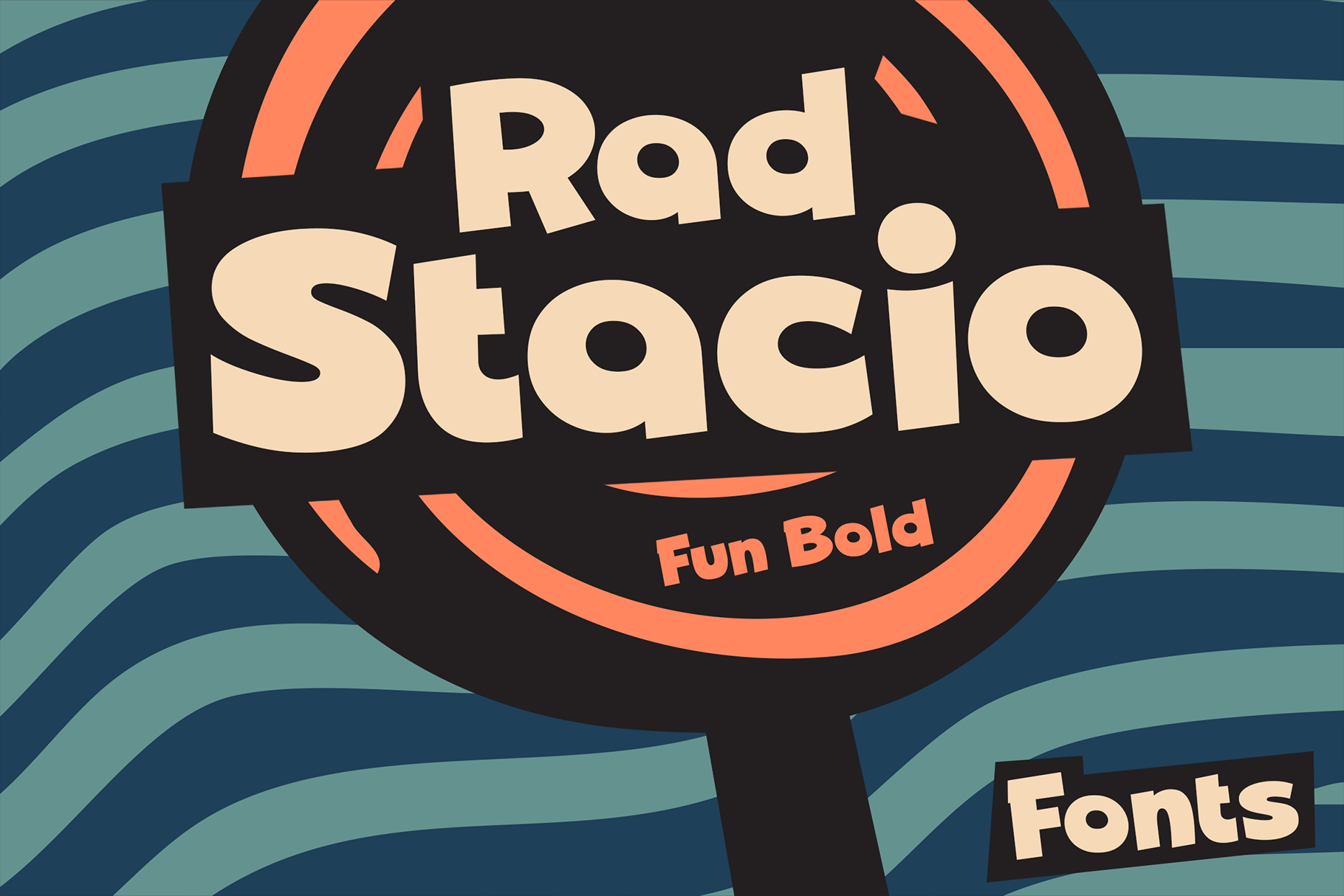
Rad Stacio - Fun Bold Fonts
Are you ready to inject a dose of infectious personality into your designs? Look no further than Rad Stacio, the brand new font that's as fun to look at as it is to use! Inspired by the vibrant, pop-art infused world of retro cartoons, Rad Stacio is designed to make your projects stand out with its unique blend of playful charm and undeniable boldness.
Rad Stacio isn't just a font; it's a mood. Its wonderfully uneven, round, and chunky letterforms exude a super casual, free-spirited vibe that's perfect for capturing attention and sparking joy. Forget rigid serifs and stuffy styles – Rad Stacio is here to break the rules and bring a smile to every face.
Why Rad Stacio is Your Next Design Essential:
Pop-Cartoony & Quirky: Instantly evoke a sense of nostalgia and fun with a style reminiscent of your favorite Saturday morning cartoons.
Bold & Playful: Make a powerful statement with its thick, confident strokes, while maintaining an approachable and friendly feel.
Uneven & Casual: The subtle irregularities in its design give it an authentic, hand-drawn character, adding warmth and personality.
Versatile Design Powerhouse:
Casual Branding: Craft unforgettable brand identities that resonate with a youthful, energetic audience.
Logo Design: Create distinctive, memorable logos that pop off the page.
Food & Beverage Branding: Design packaging and menus that are as appetizing as the products themselves.
Pop Events & Festivals: Set the stage for exciting gatherings with eye-catching posters and promotional materials.
Retro Design: Transport your audience back in time with a fresh, contemporary twist on vintage aesthetics.
Social Media Graphics: Dominate feeds with scroll-stopping visuals that demand engagement.
Advertising, Headlines, Editorial, Comics, Posters, Invitations, and much more!